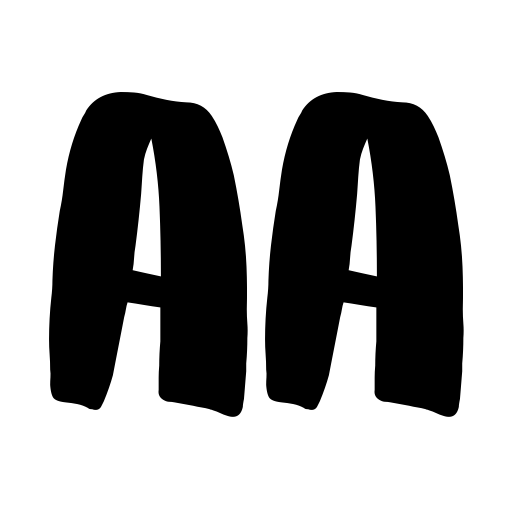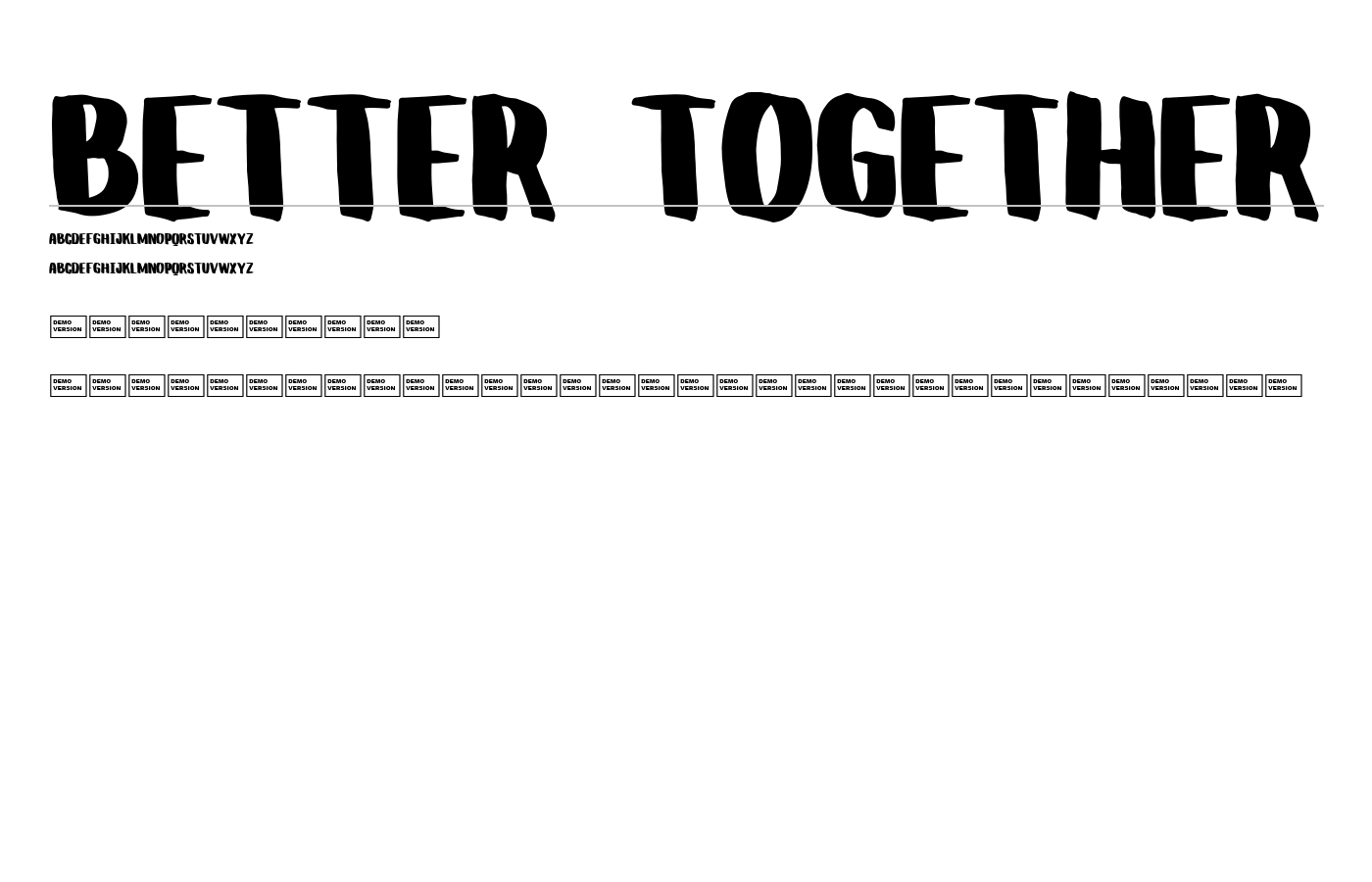
Better Together is a bold, playful sans serif font with a hand-crafted feel, characterized by its uneven, chunky letterforms that create a lively and friendly vibe. Its strong, slightly condensed shapes and high x-height make it ideal for eye-catching headlines and branding that seeks to convey warmth and approachability. This font works great for creative projects, posters, and packaging where a casual, fun personality is desired.
Better Together Font
About Better Together Font
| Font family | Better Together Font |
| Designer | Katsia Jazwinska |